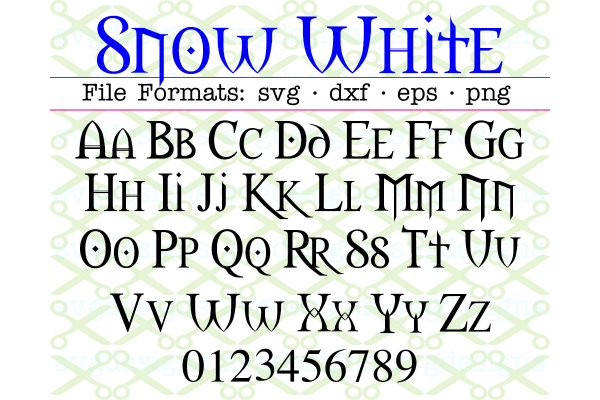
SNOW WHITE FONT SVG FILES, In File Formats SVG, DXF, EPS & PNG. Upper case monogram letters & numbers as shown in ad picture. Inspired by the popular SNOW WHITE fairy tale. Copyright disclaimer: We are referring to the Brothers Grimm version of Snow White story, written in 1812, which is in the Public Domain.